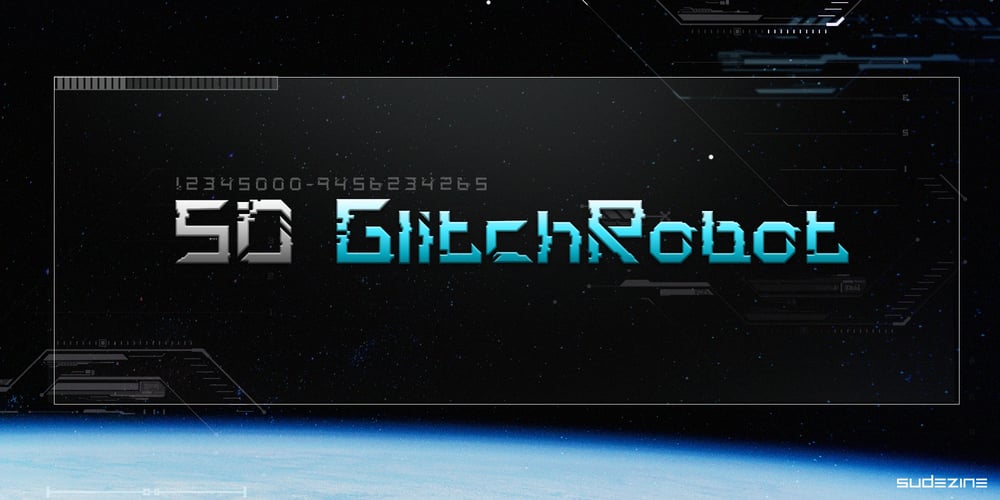
SDGlitch Robot Font Family was designed by Suhee Hwang and published by Sudezine. SDGlitch Robot contains 1 styles and family package options. SDGlitchRobot is a Futuristic Science Font, Use logos, quotes, invitations, greeting cards, journals, posters, clothing, and more. This font will infuse your designs with playfulness and fun!